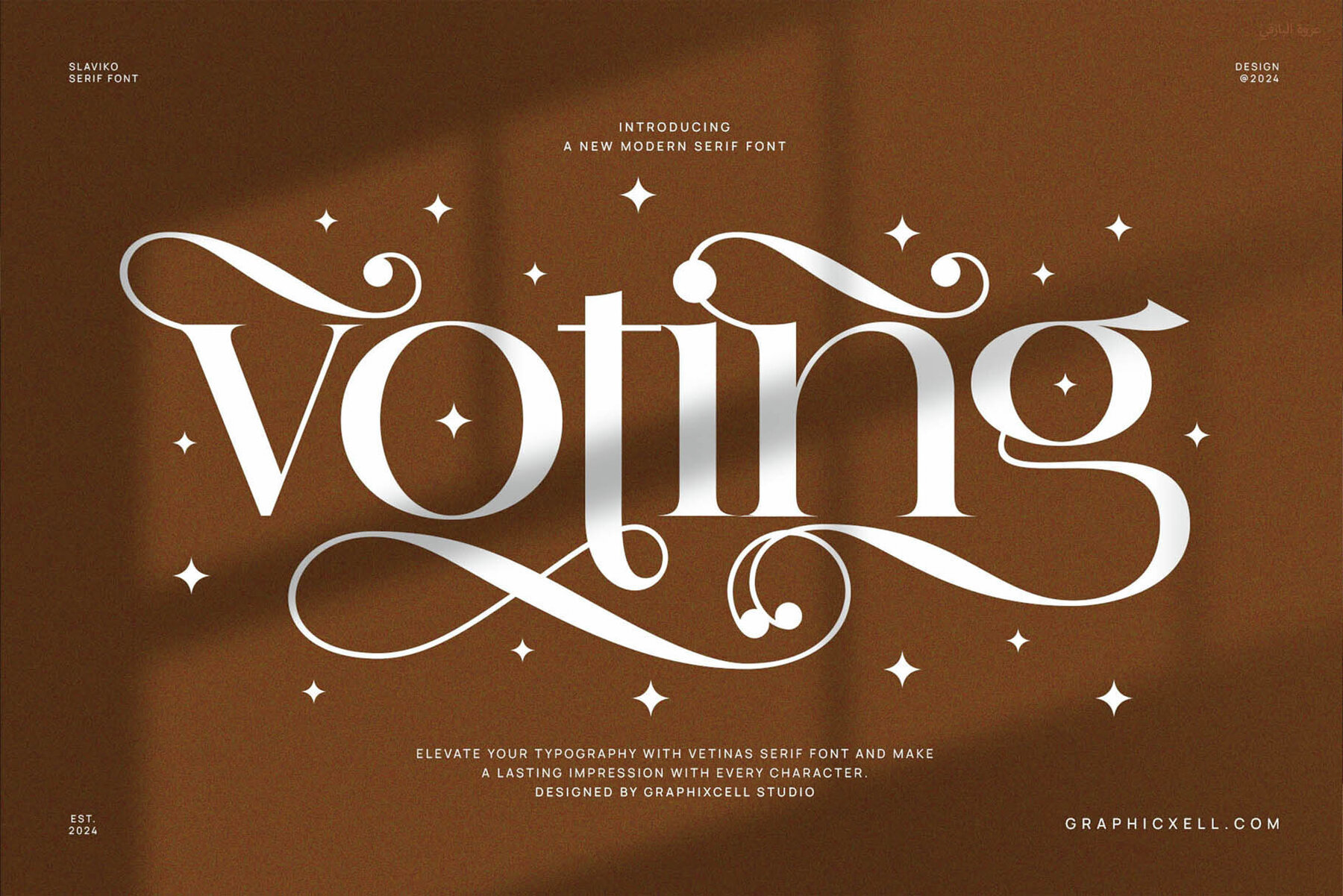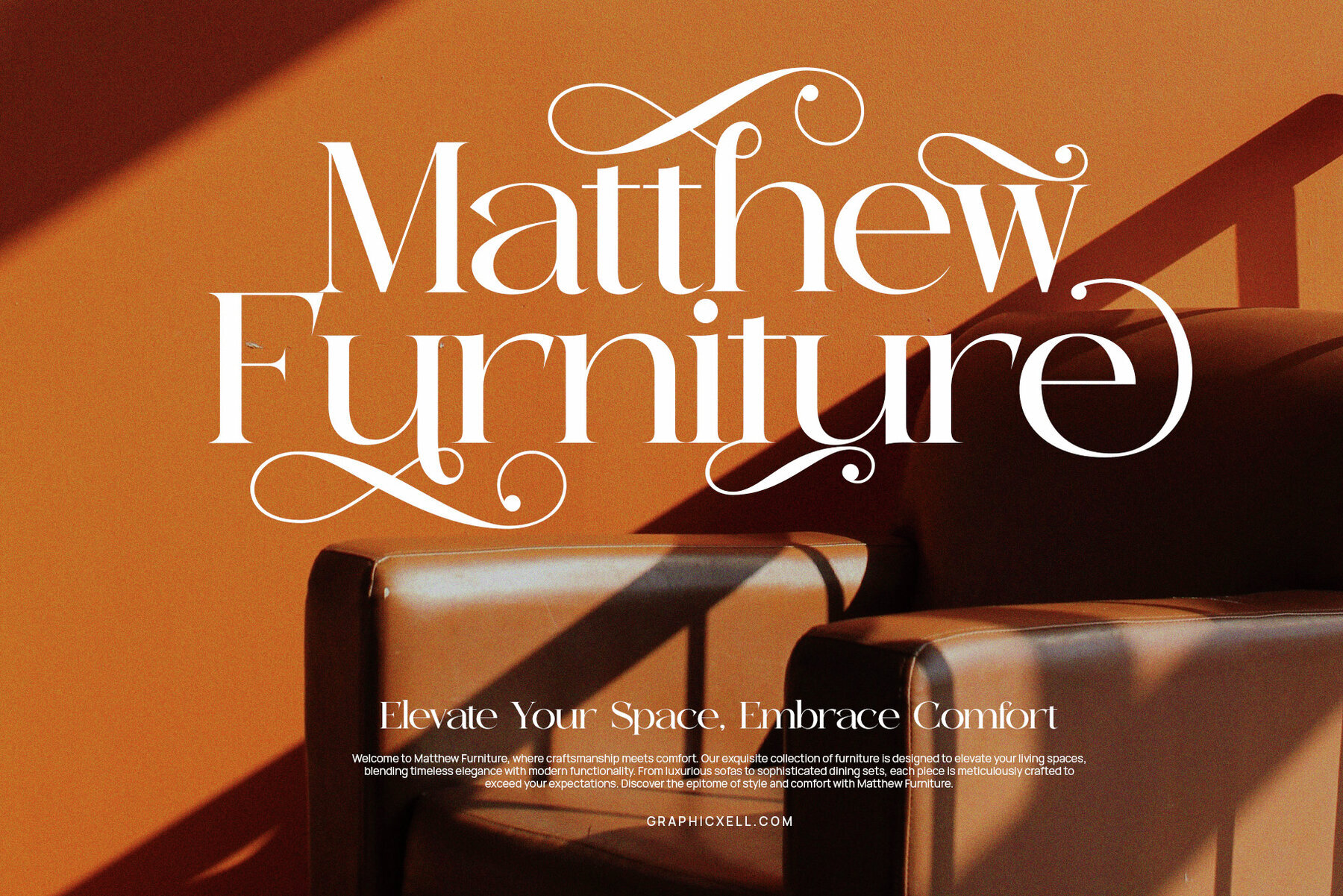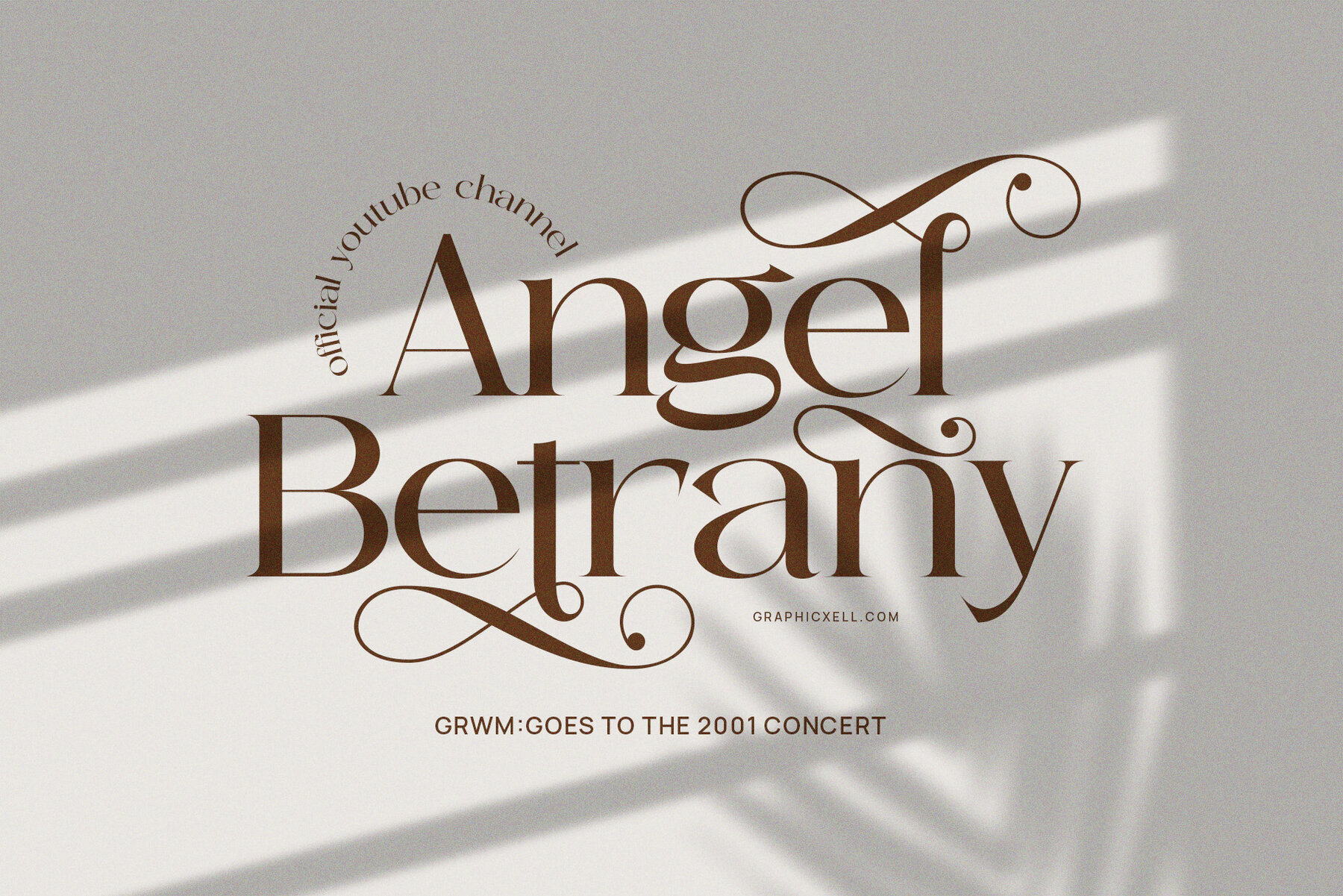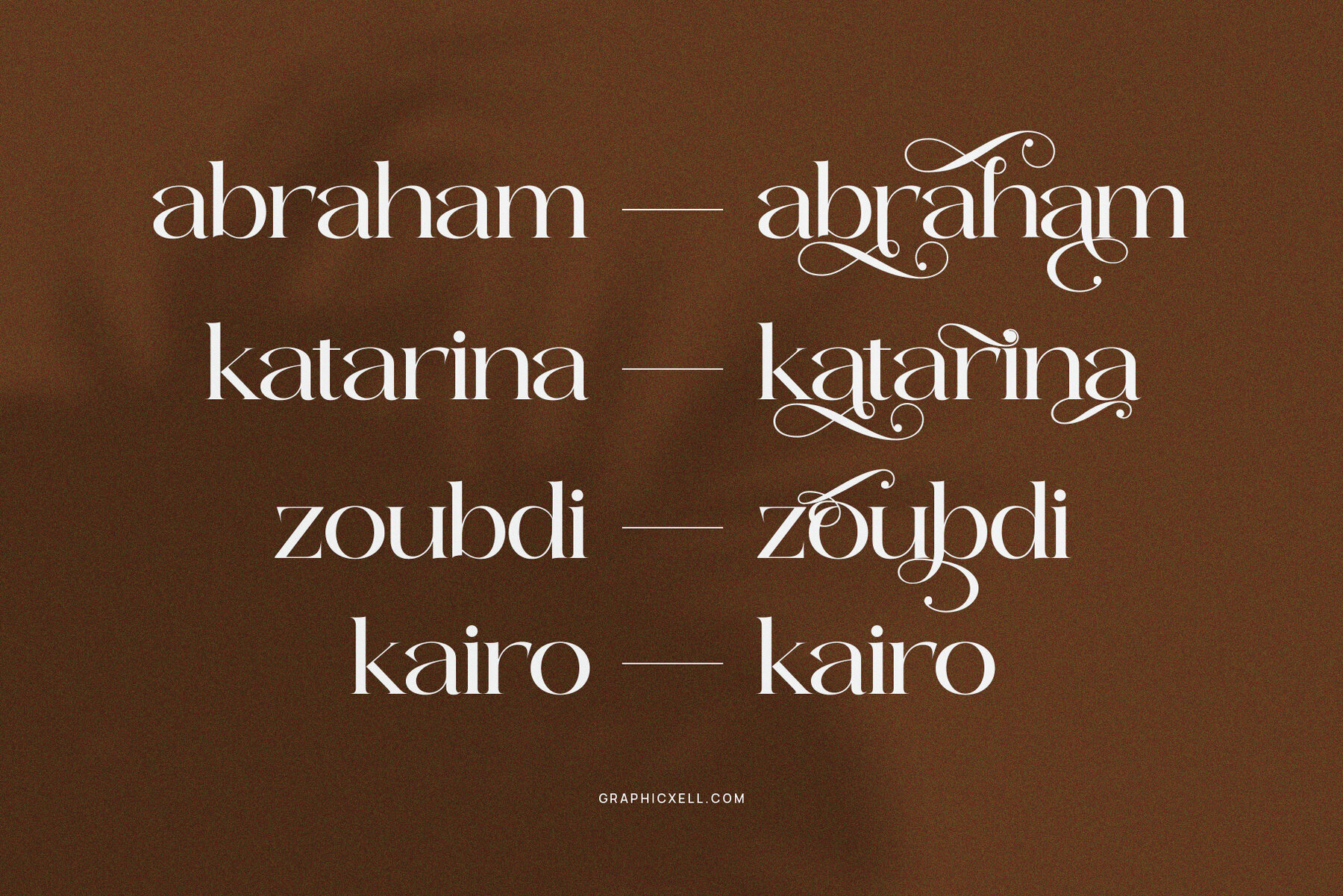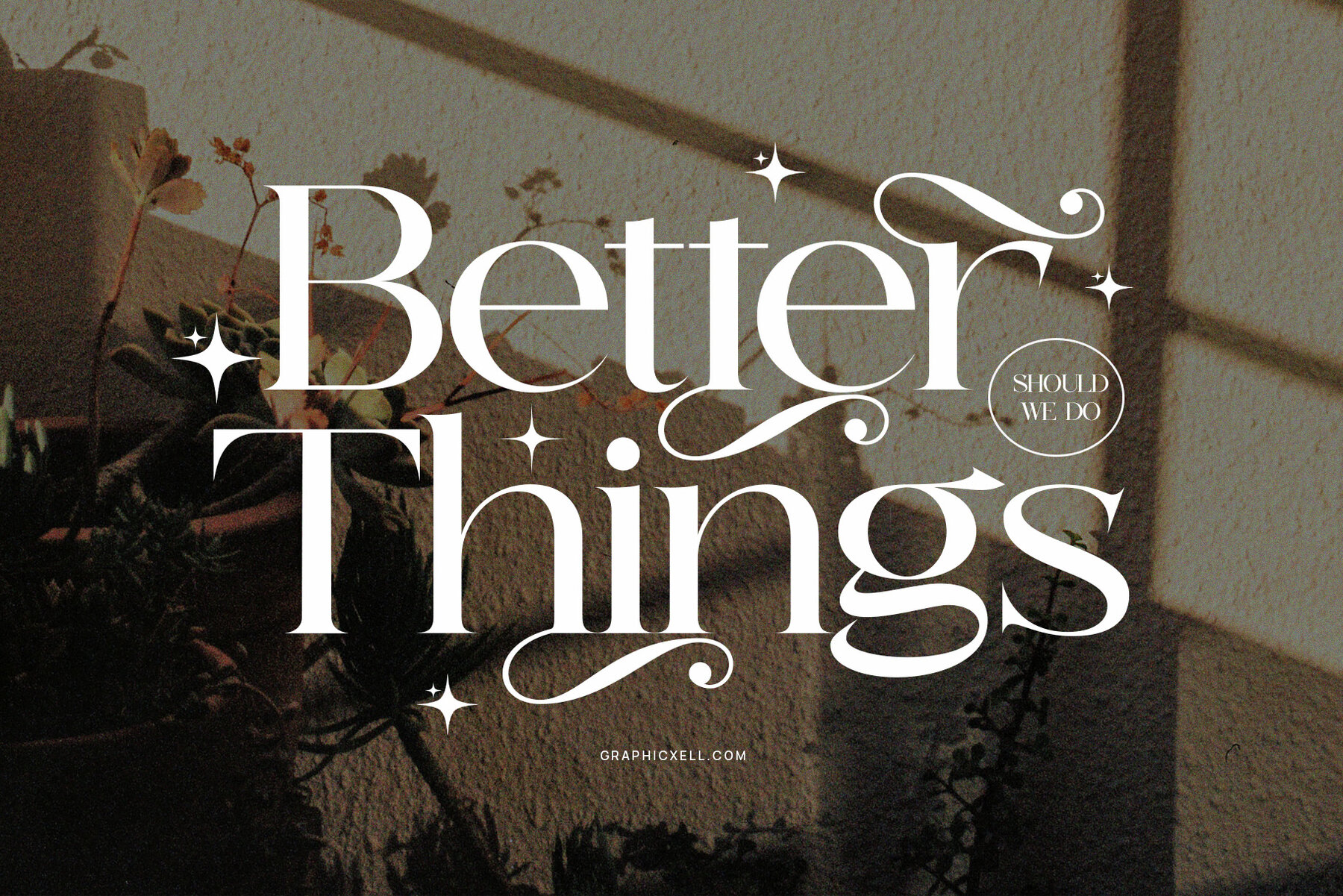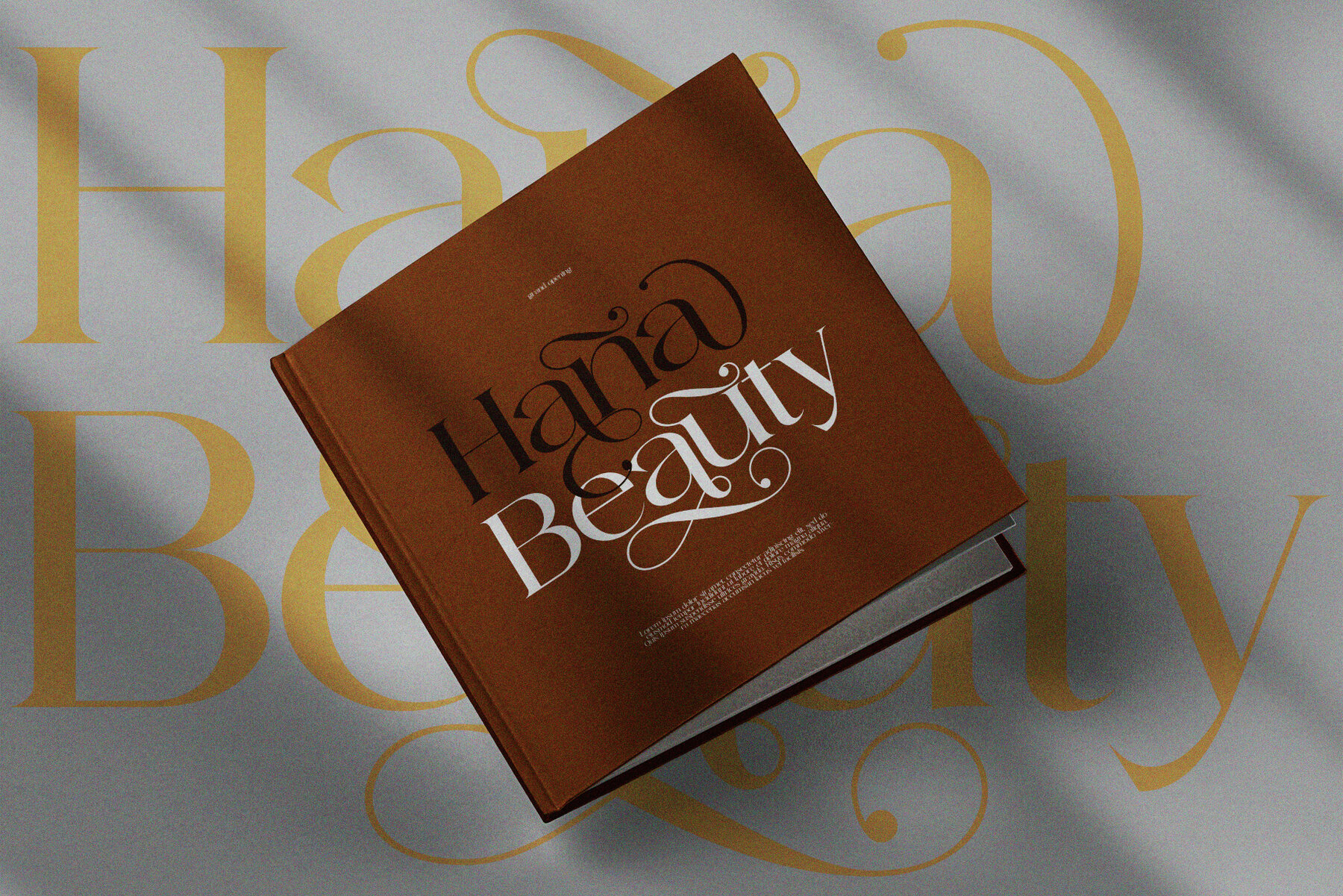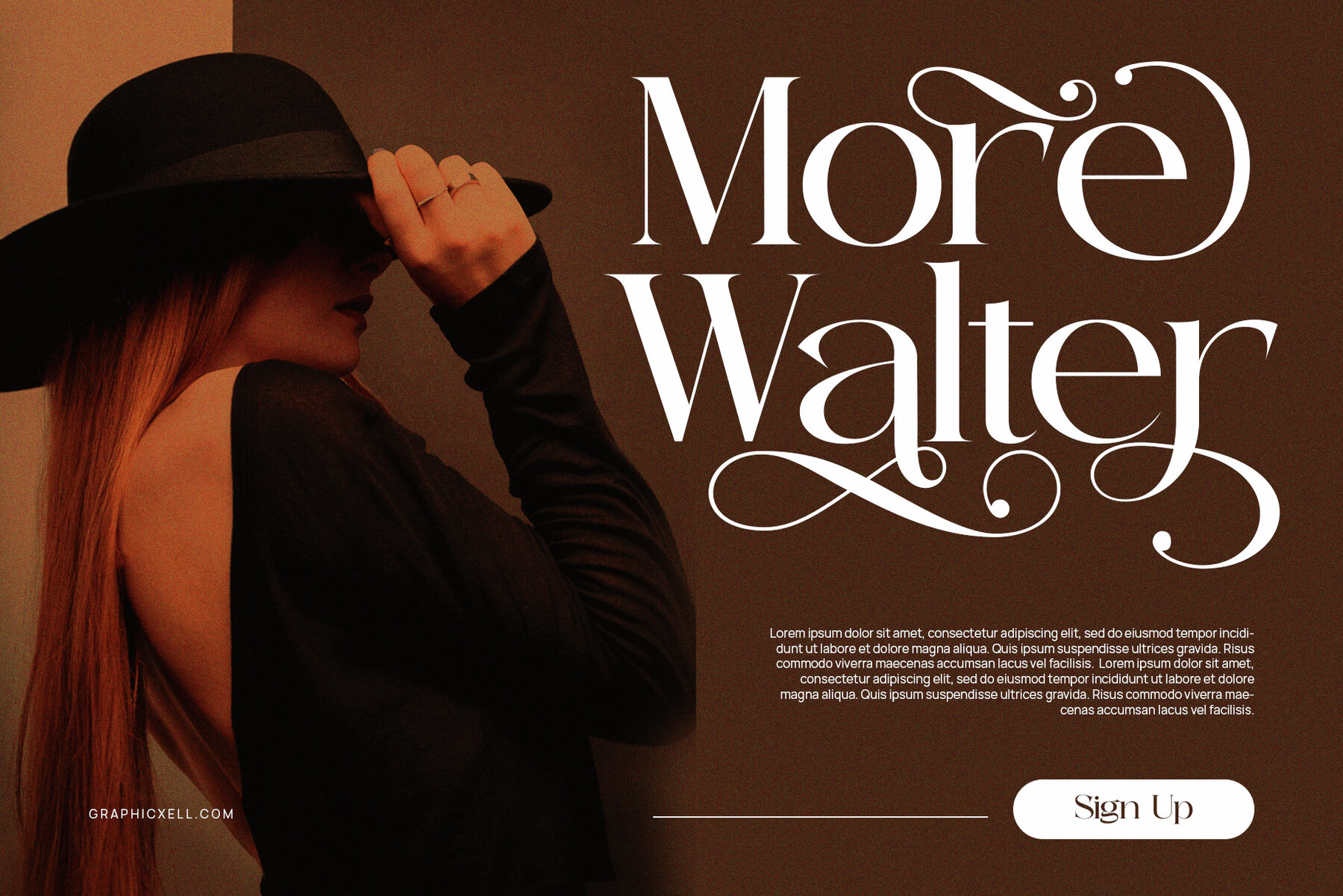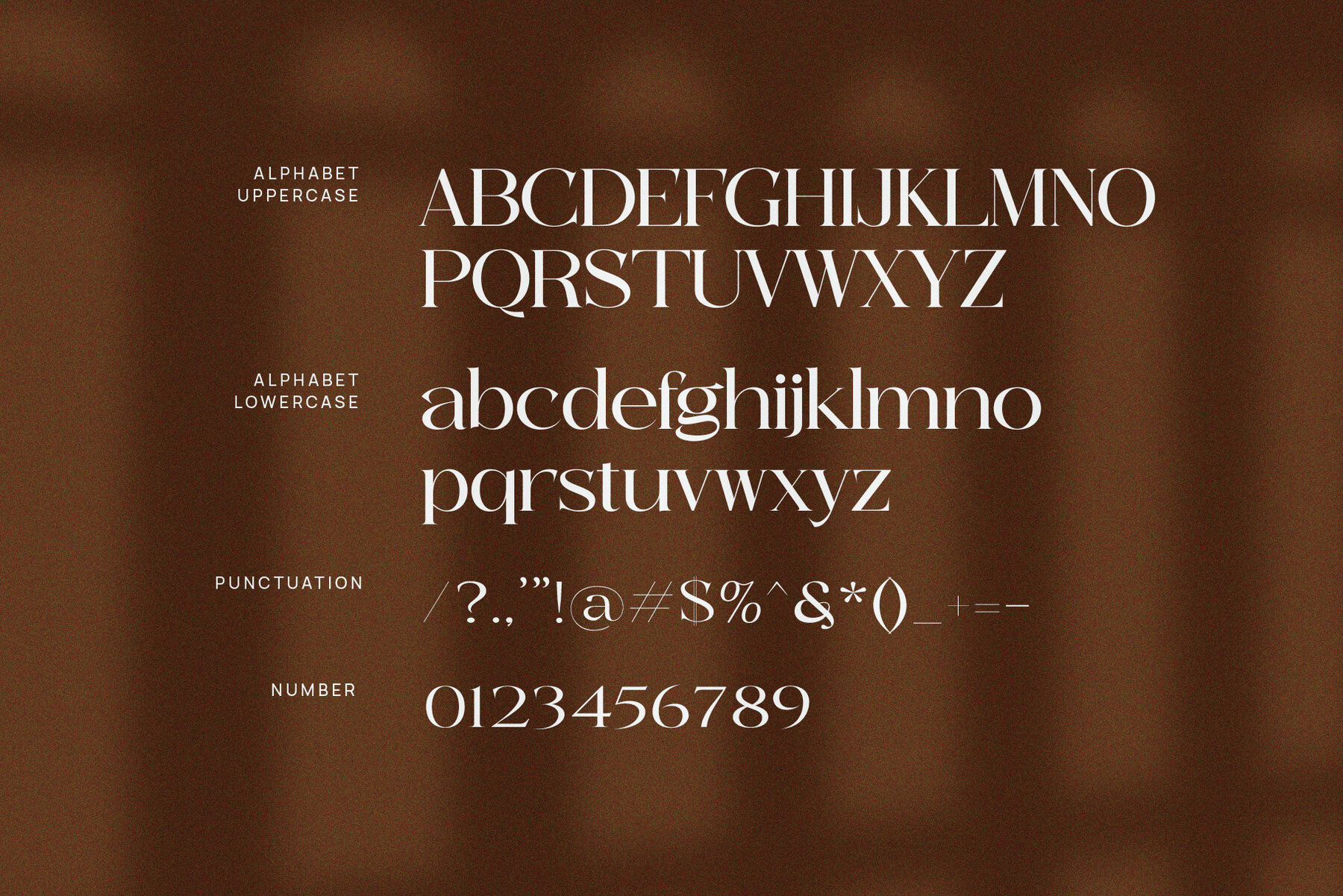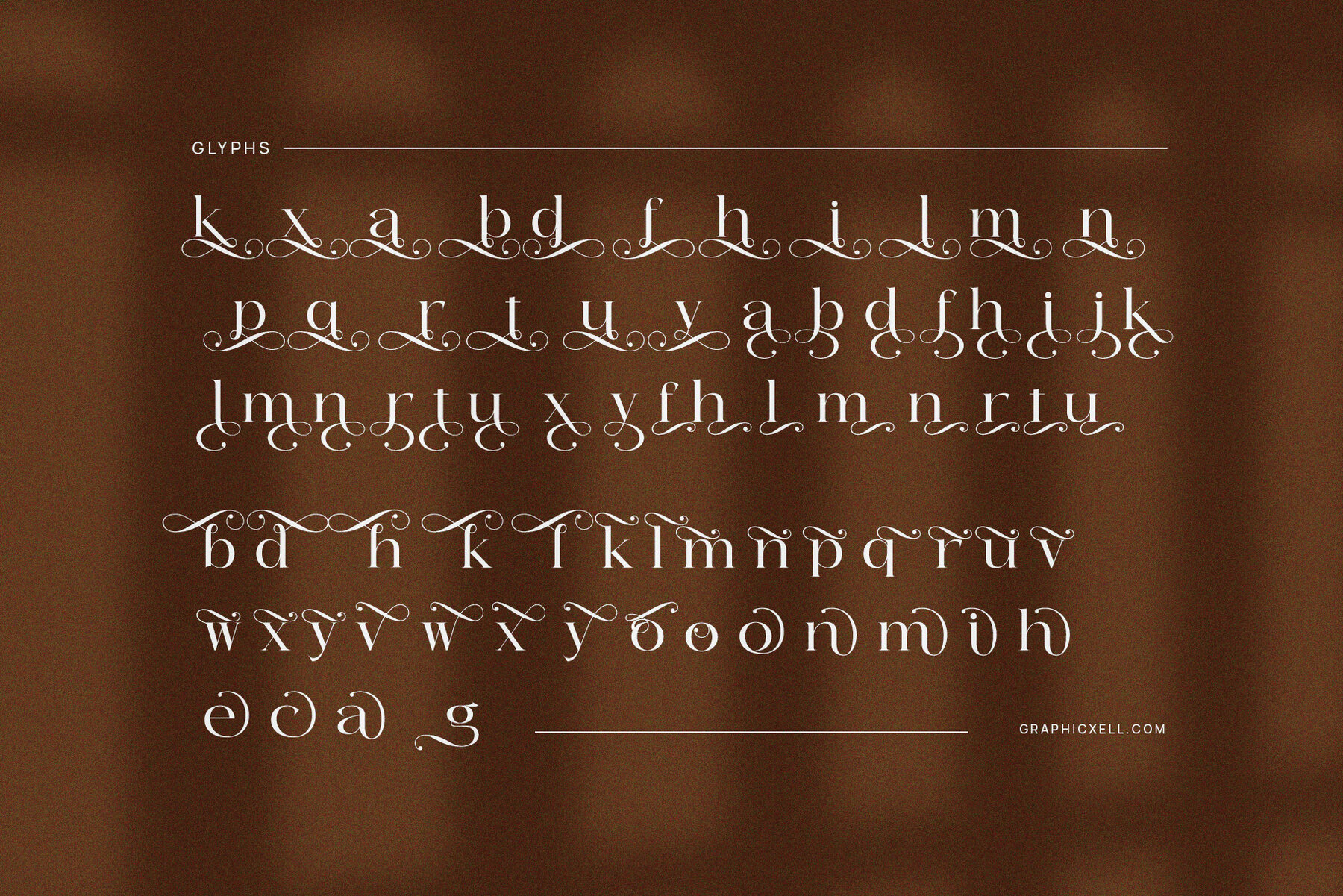
Voting Font
Voting Regular
Voting Elegant Calligraphy Serif Font is making waves in the typography world with its distinctive design and refined features. This serif font showcases striking counterstrokes, balancing pointed and rounded forms for an elegant finish. One of its standout benefits is its high legibility, achieved through a clear contrast between thick and thin strokes. Its gracefulness and professionalism make it an exceptional choice for various applications.
Ideal for classic styles, this serif font imbues designs with a traditional and luxurious feel, making it suitable for companies seeking to convey stability and reliability. Yet, its versatile characteristics allow it to fit modern and trendy designs, adding a touch of uniqueness. When applied correctly, it enhances the visual impact and communicates a professional image effectively. Incorporate it into your projects to achieve a sophisticated and distinctive look.